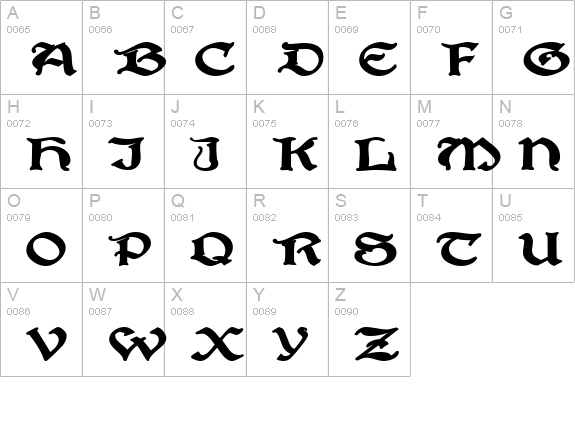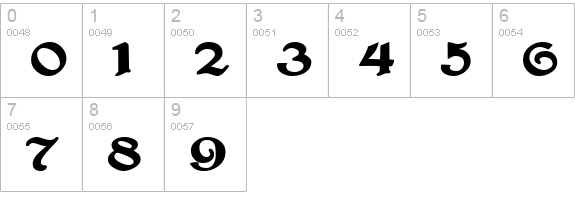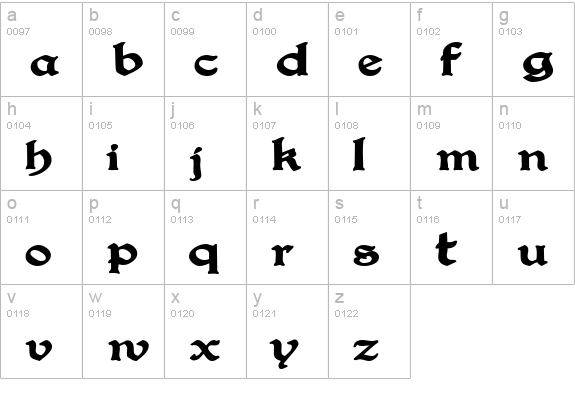
BucaneerSSK Bold is a strong, high-contrast variant in the BucaneerSSK typeface family \xE2\x80\x94 well suited to headlines, attention-grabbing titles, and strong calls-to-action.
BucaneerSSK Bold font is a bold and eye-catching typeface that exudes a sense of adventure and boldness. Its strong and sturdy letterforms make it perfect for headlines, titles, and other display purposes. The font's unique design combines a classic serif style with a touch of swash and flair, giving it a distinctive and memorable look. And the best part? BucaneerSSK Bold font is available for free download at FontsMarket.com. So whether you're working on a branding project, designing a poster, or creating a logo, this versatile and striking font is ready to elevate your designs to the next level. Download BucaneerSSK Bold font today and add a touch of daring sophistication to your projects!